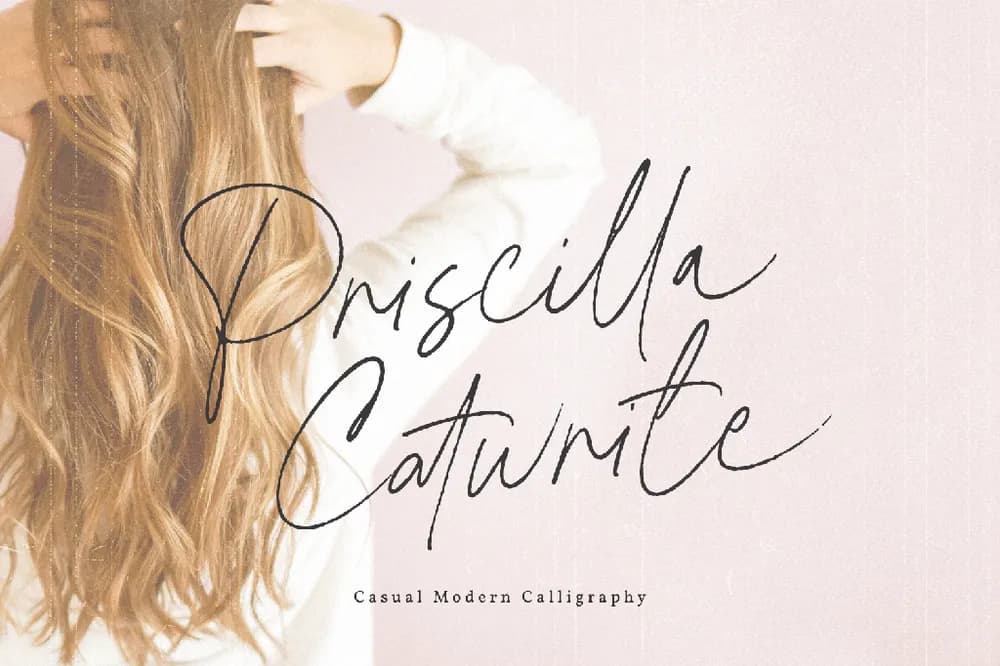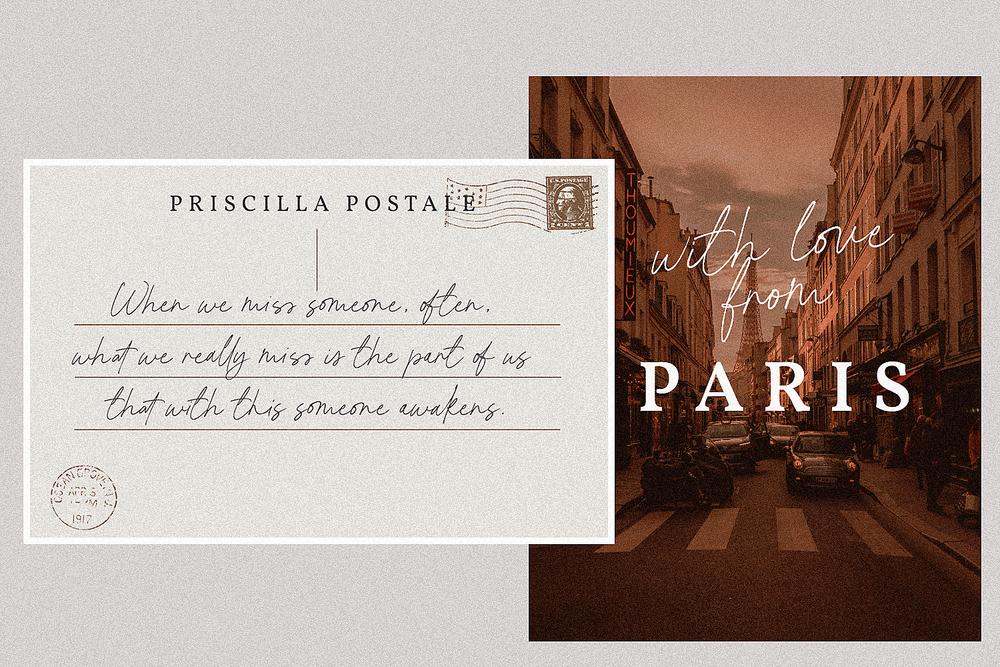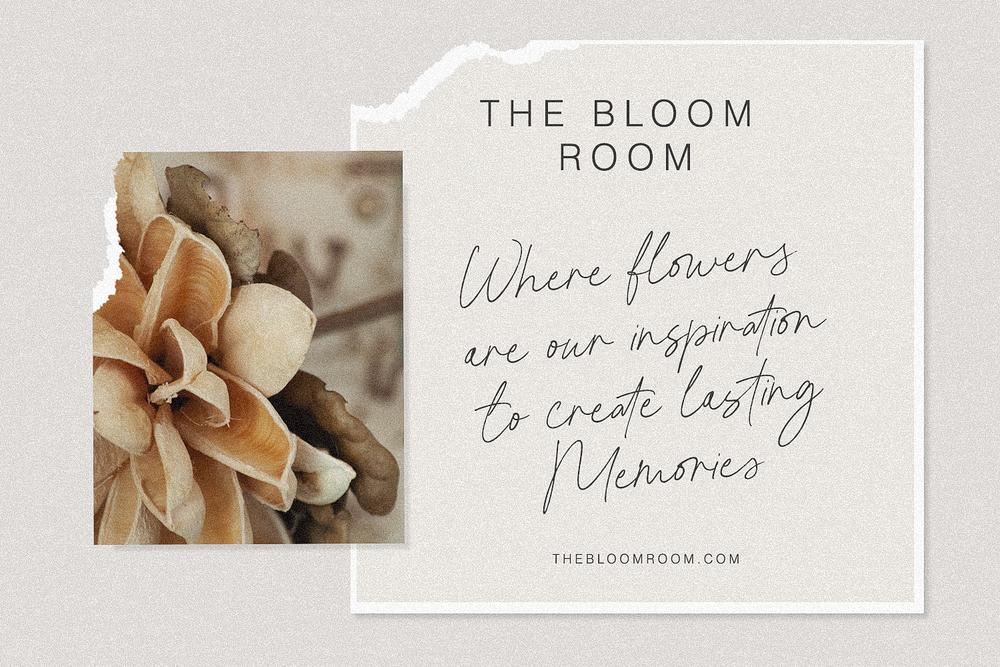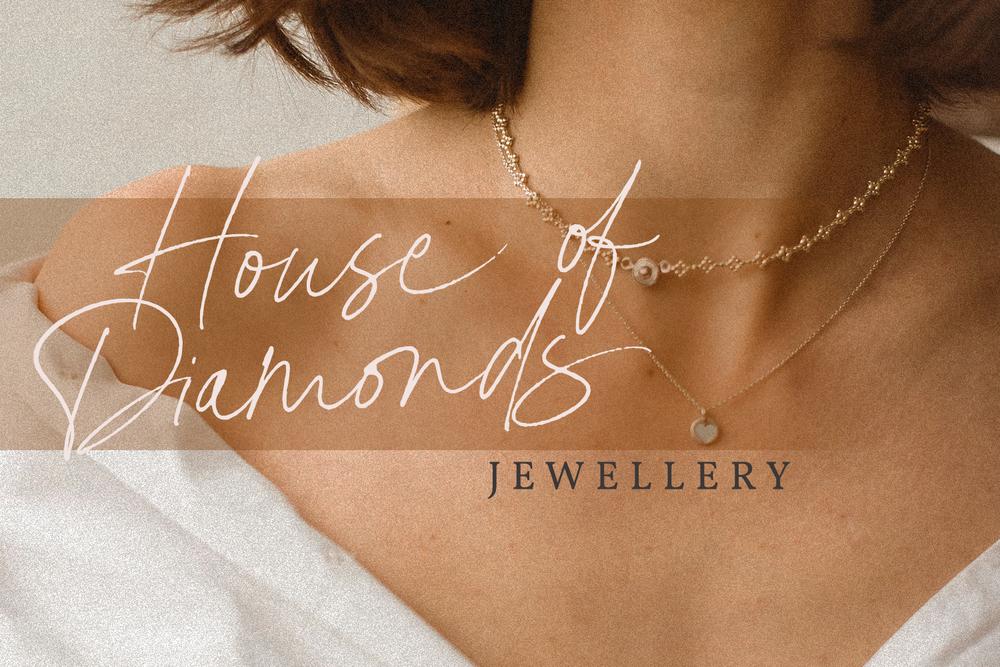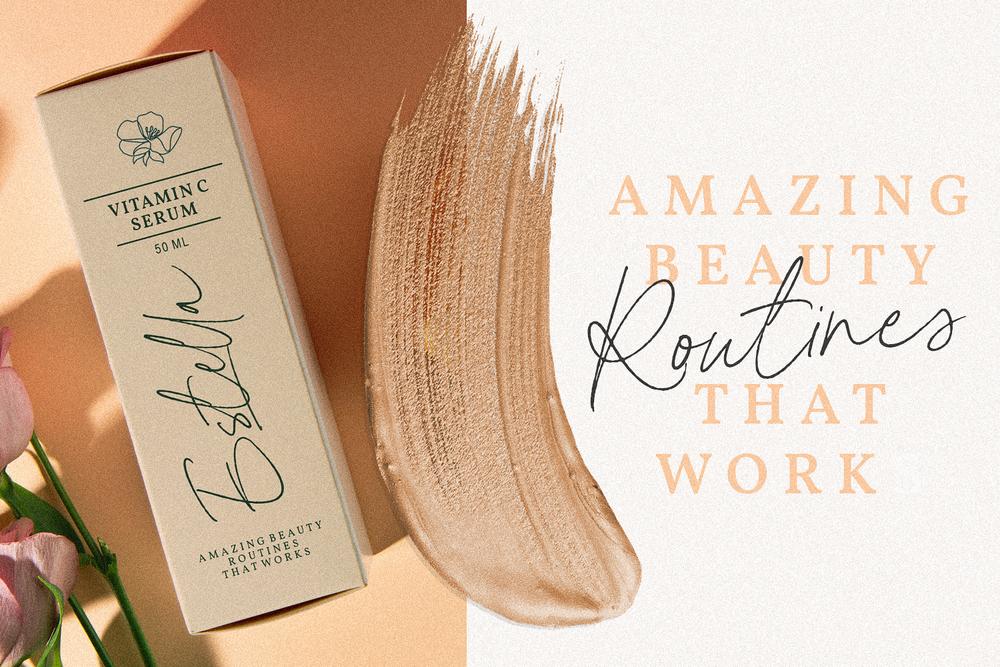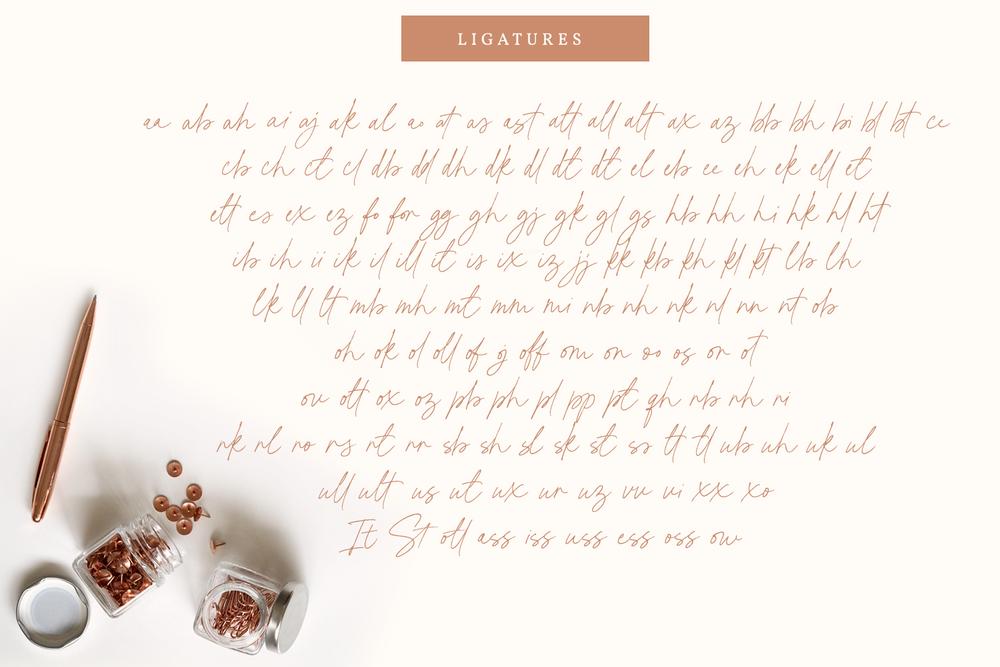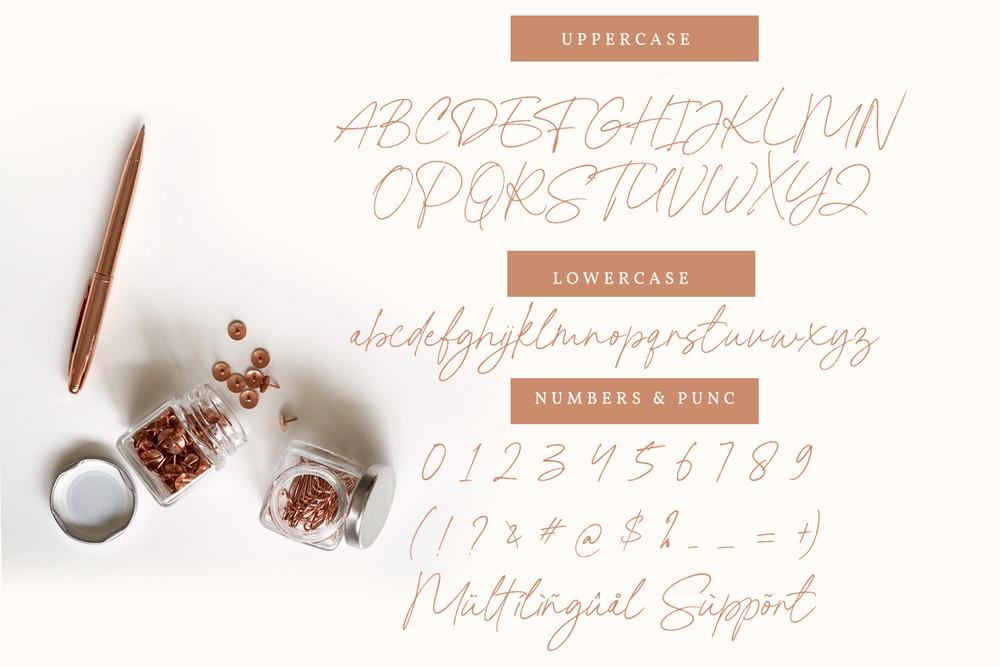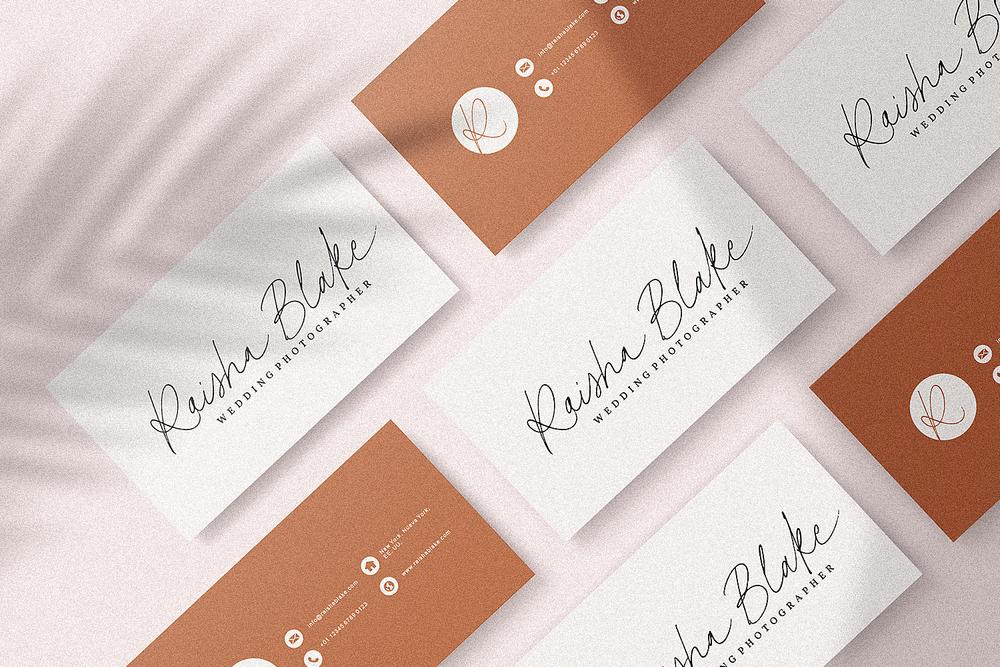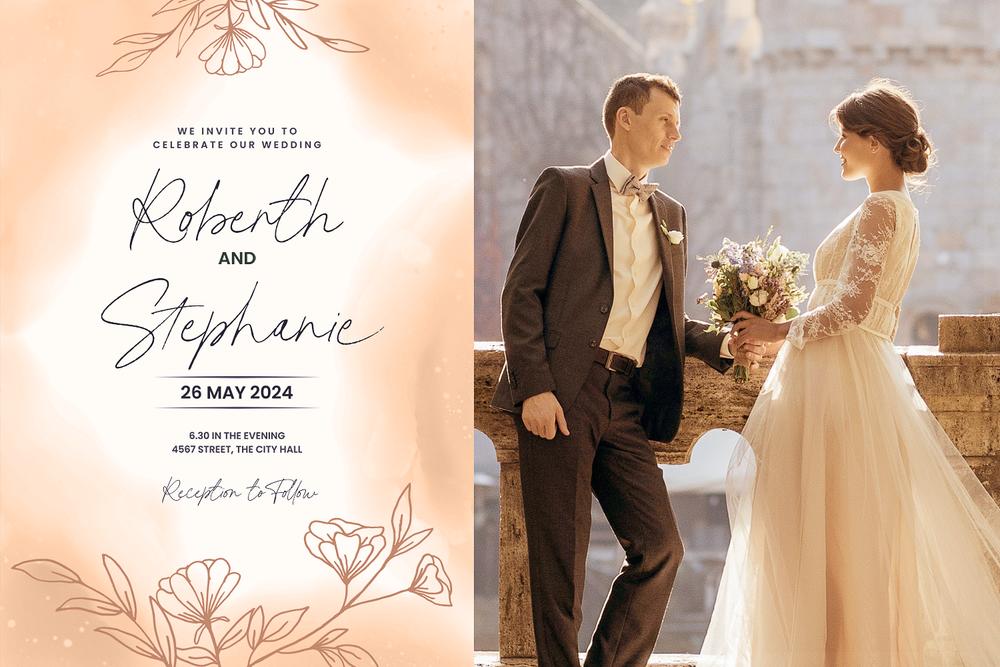
Hello! Let me introduce Priscilla Catwrite — a modern calligraphy font. With its natural, is the perfect choice for logos, branding, web, blog headlines, invitations, magazine and book design, product packaging — or for any text on postcards and on your favorite photos. Font includes: TTF OTF WEBFONT